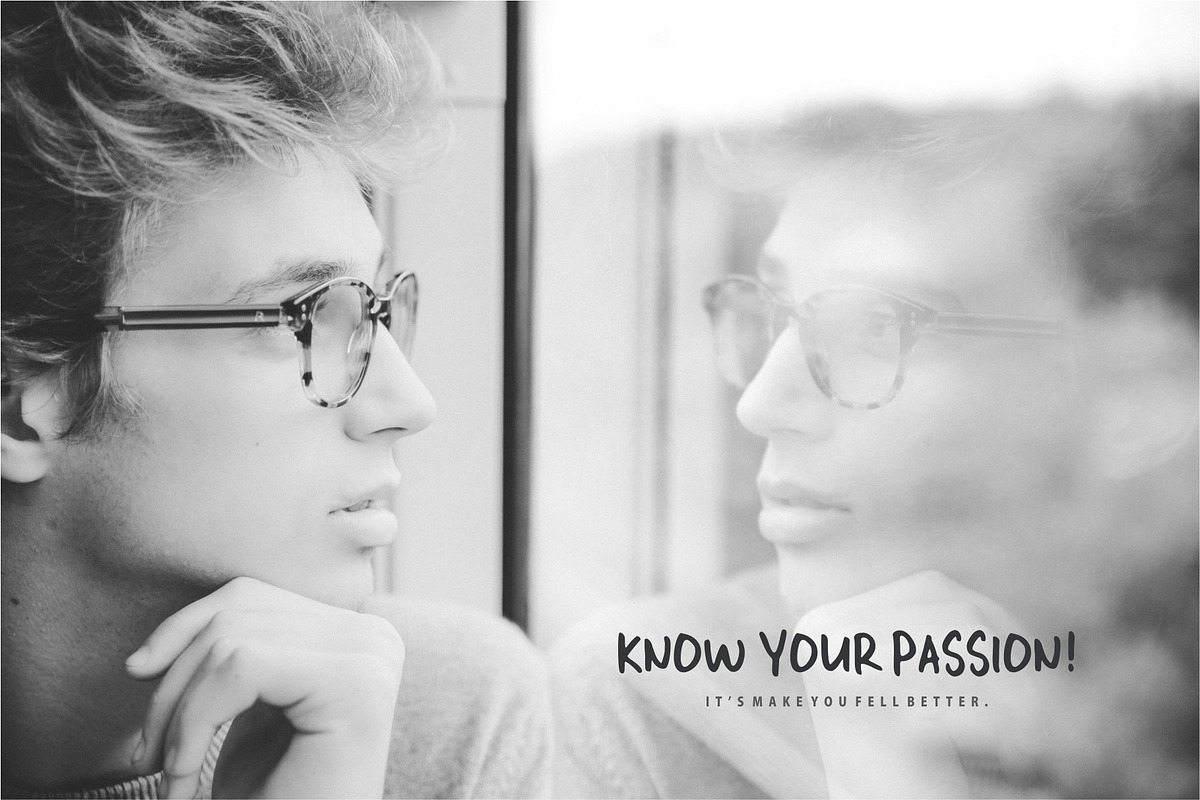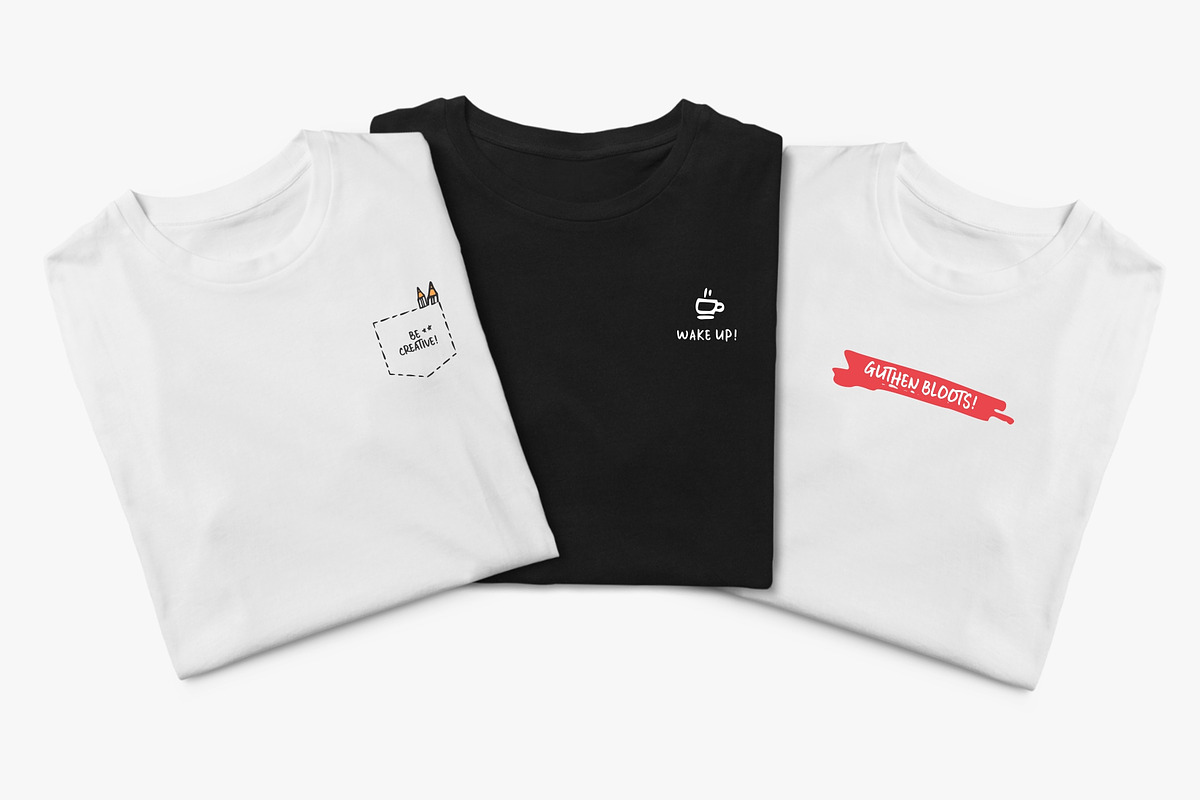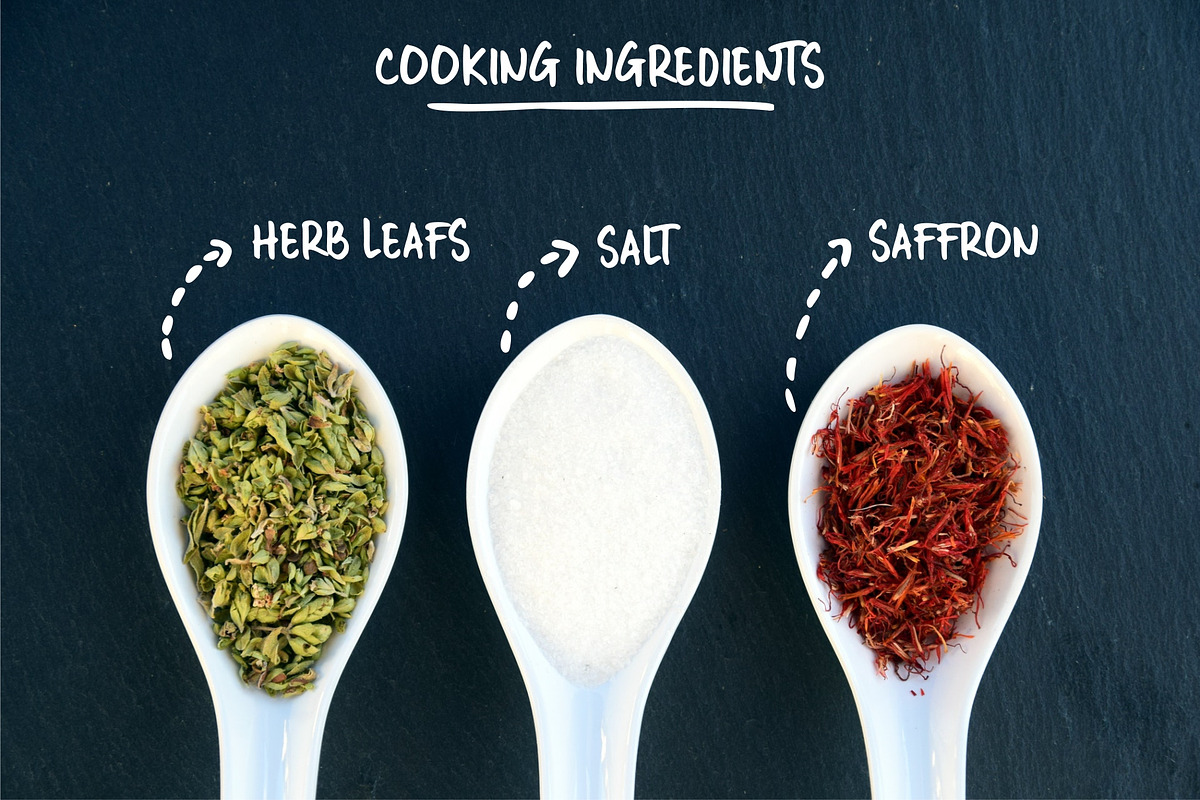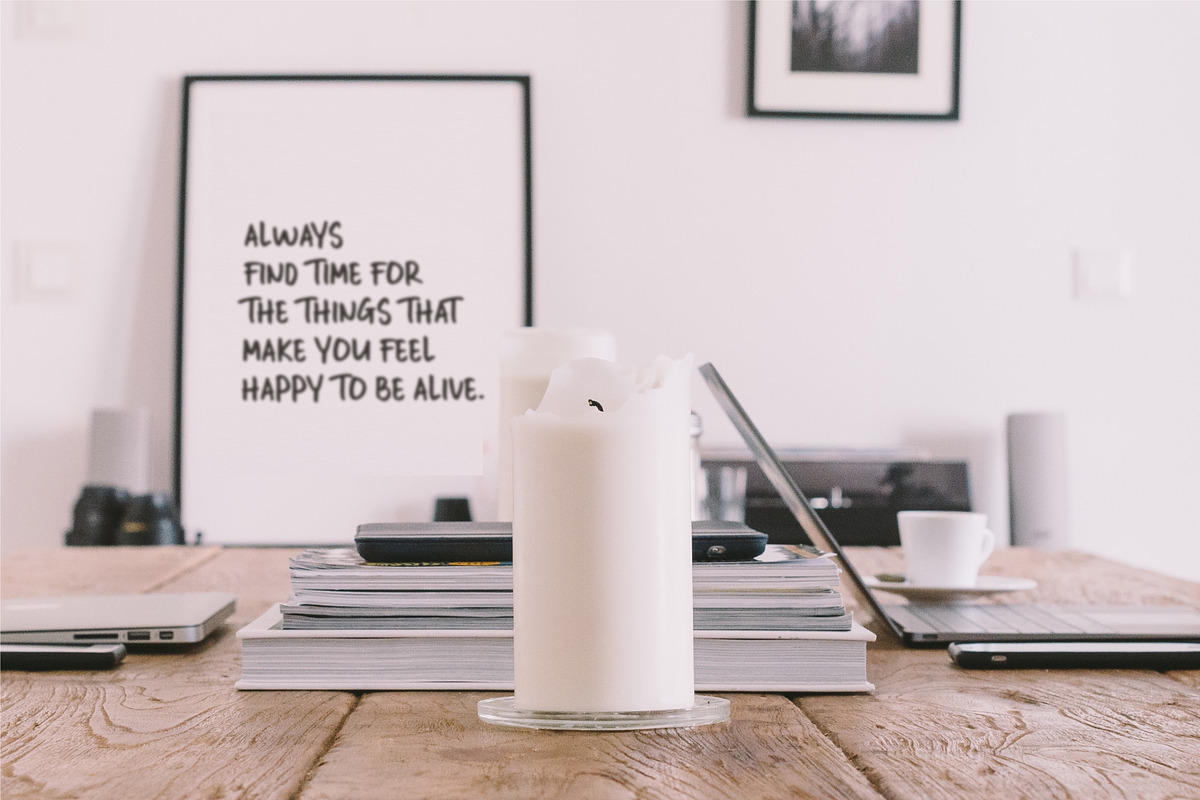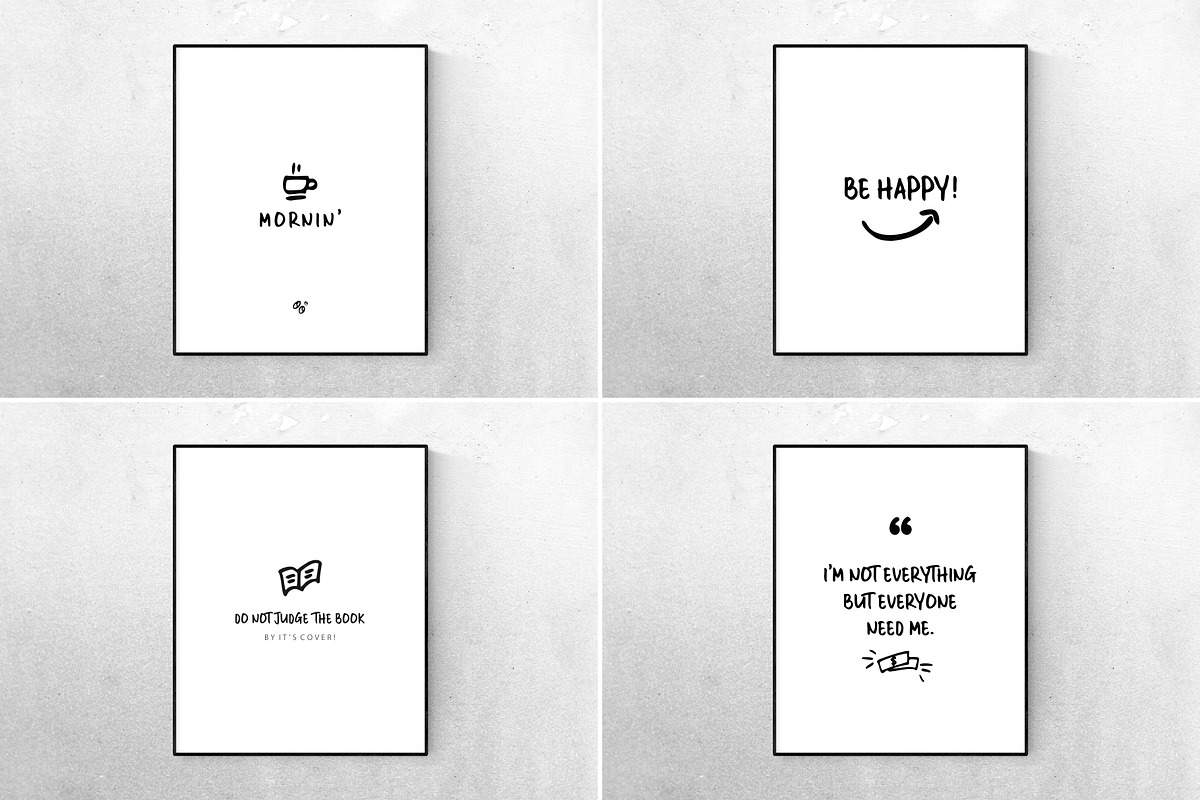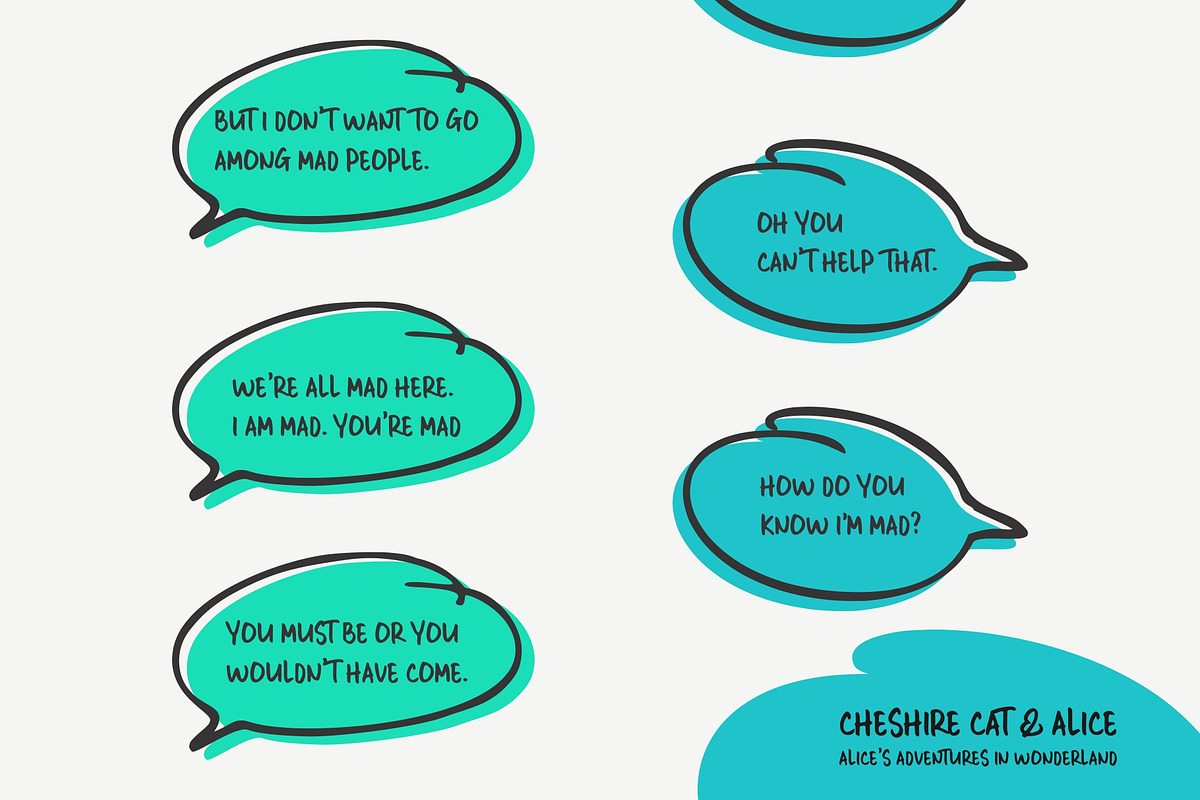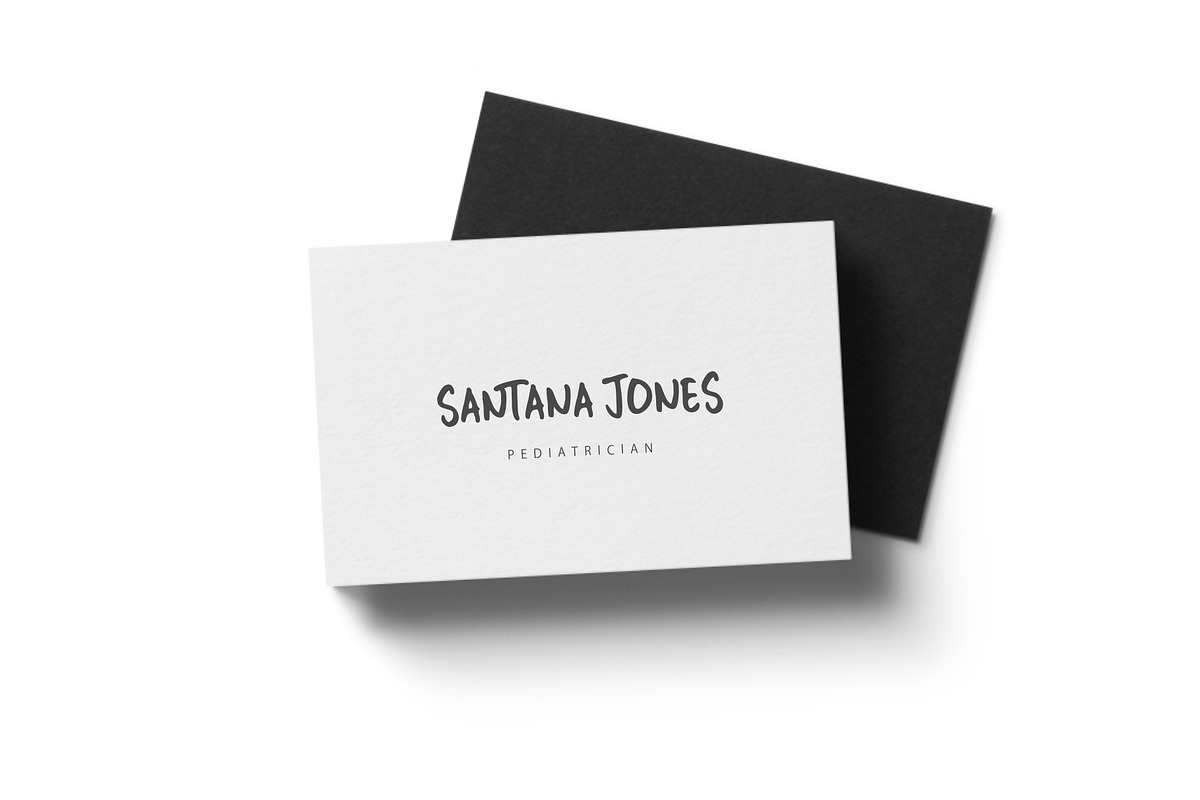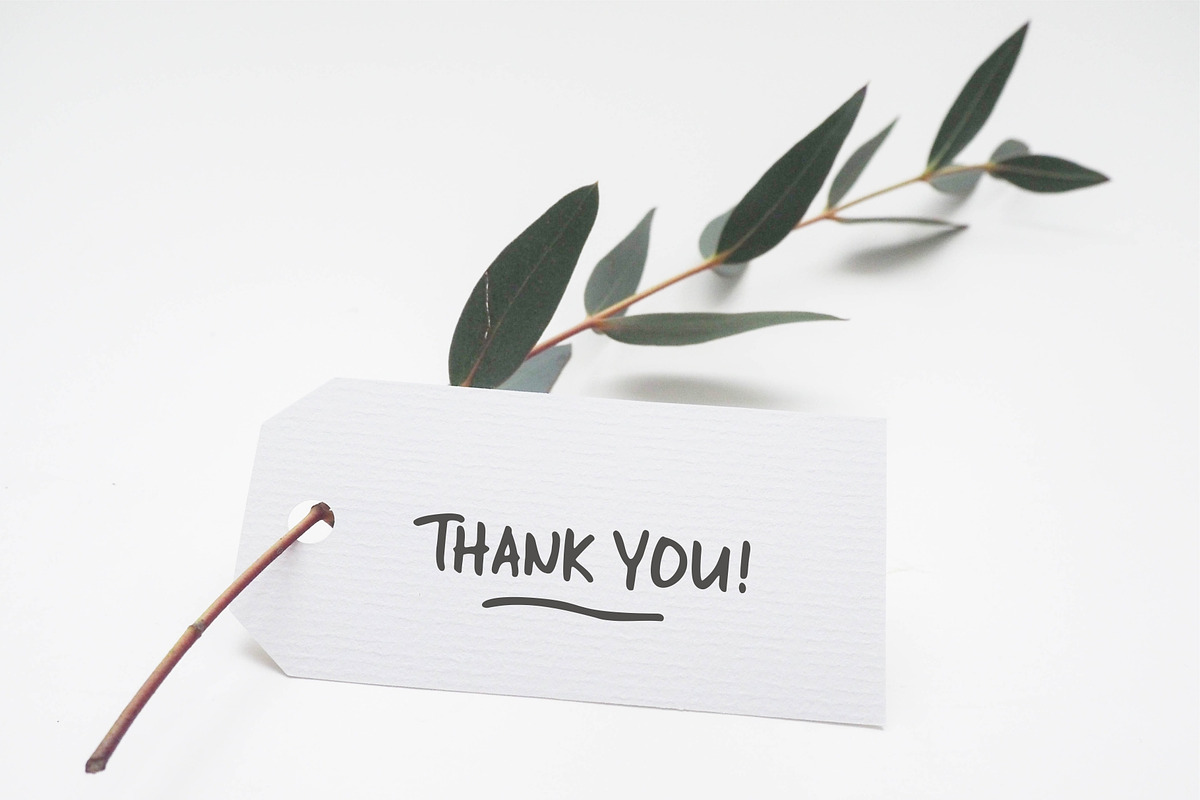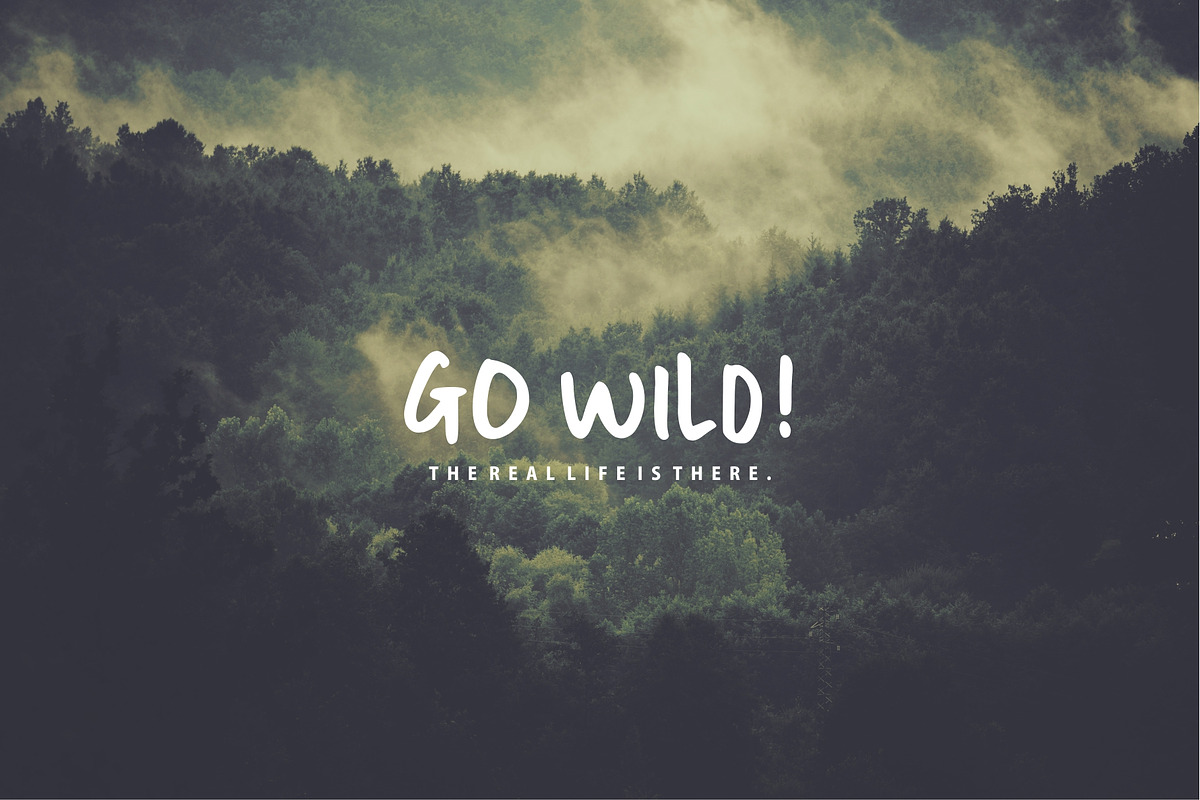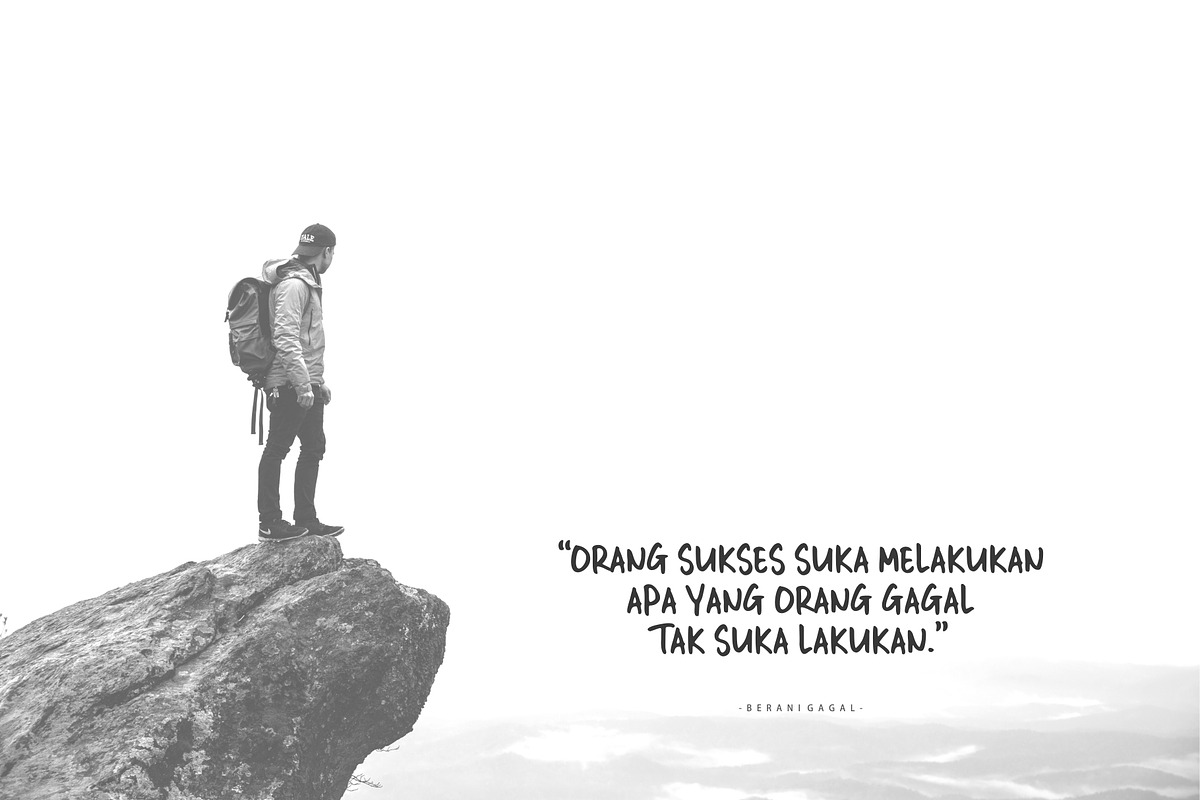
Guthen Bloots Allcaps (Extended)
Presenting GUTHEN BLOOTS ALLCAPS + EXTRA!
This One is the Best Choice for You to make a Huge Project that looks Perfect and Natural! This font made with perfect combining of each characters. You can be used for all your project needs. Each glyph has its own uniqueness and when meeting with others will provide a dynamic and pleasing proximity. This font can be used at any time and any project. You can see in the presentation picture above, it looks perfect and elegant on design projects. You must prove it!
So, GUTHEN BLOOTS ALLCAPS can't wait to give its touch to all your design projects such as quotes, poster design, personal branding, promotional materials, product design (e.g. T-shirt), etc.
WHAT'S INCLUDED?
1. GUTHEN BLOOTS ALLCAPS • It's comes with uppercase, ligatures, numeral, punctuation, symbols, and multilingual support (Afrikaans, Albanian, Catalan, Danish, Dutch, English, Estonian, French, Finnish, German, Indonesian, Italian, Malay, Norwegian, Portugese, Spanisch, Swedish, Zulu, and Many More).
This version hasn't lowercase (a-z) characters, but if you type for it, it's works too (feature UPPERCASE). It isn't looks natural if you mix it. (e.g. Guthen Bloots or guTHen BloOtS).
2. GUTHEN BLOOTS DOODLE • This is the Extra pack that looks perfect if it combined with the font verion. For feature it, so simple. You just type 'A' until 'Z' and 'a' until 'z' and than choose the Doodle versions. It's has 52 Different Styles and get what you want.
- The Multilingual Glyphs Features: ÀÁÂÃÄÅÆÇÈÉÊËÌÍÎÏÐÑÒÓÔÕÖØŒŠÙÚÛÜÝŸŽß. For request more glyphs (only Latin) contact us via e-mail.